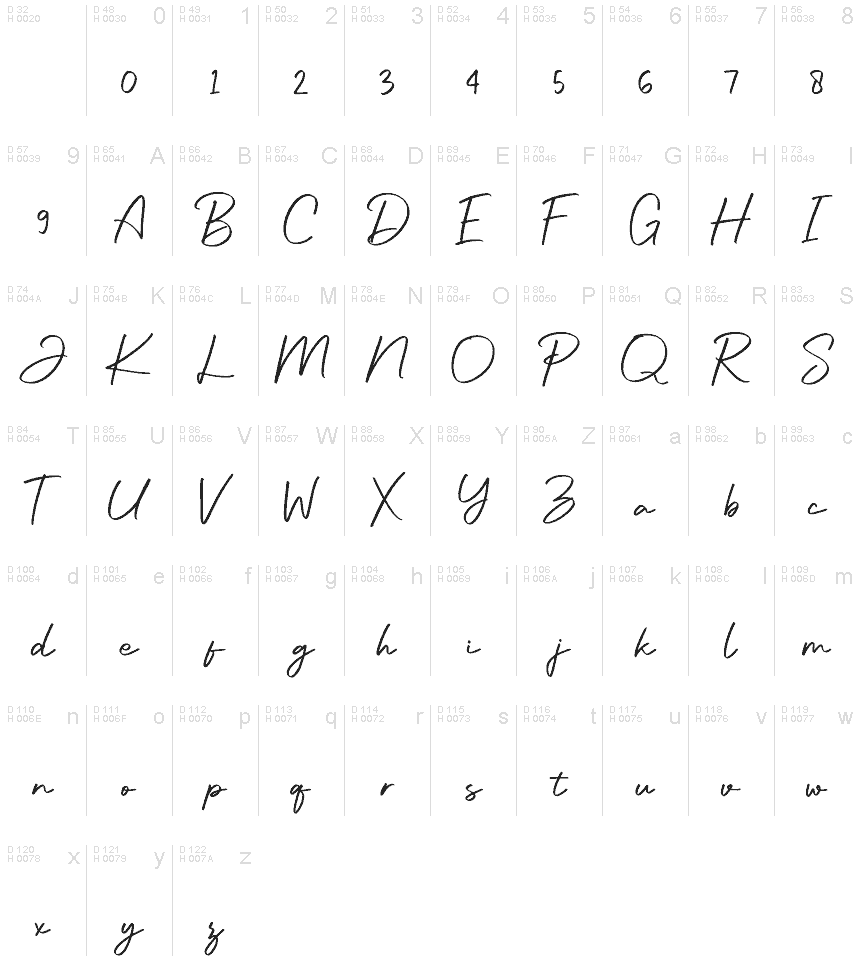
Bedger Regular
Bedger font by Surotype is a handwritten typeface with a light-weight and elegant look ideal for every project that requires modern script letters. This free font captures the casual sophistication of actual handwriting while delivering smooth flow and expert craftsmanship that’s impossible to ignore.